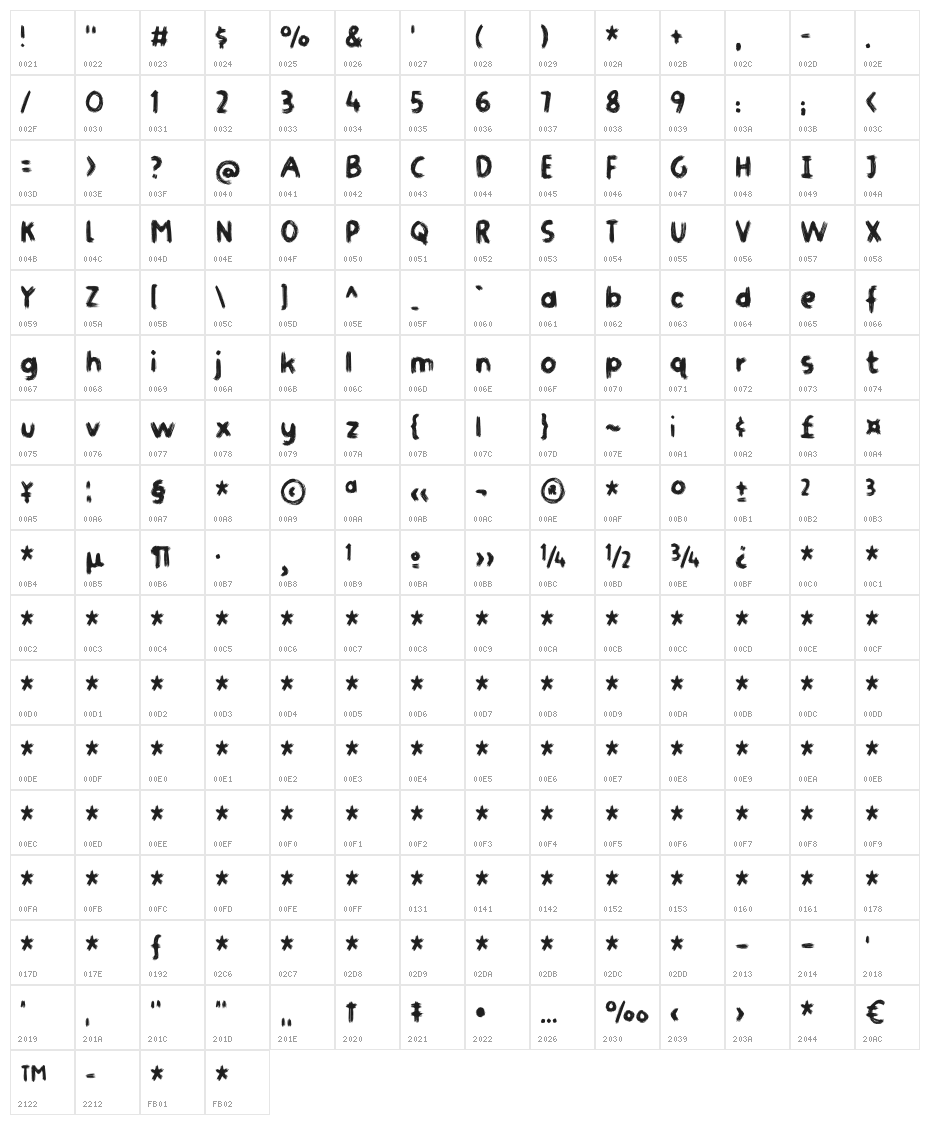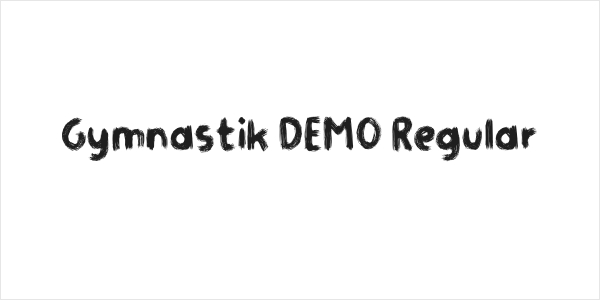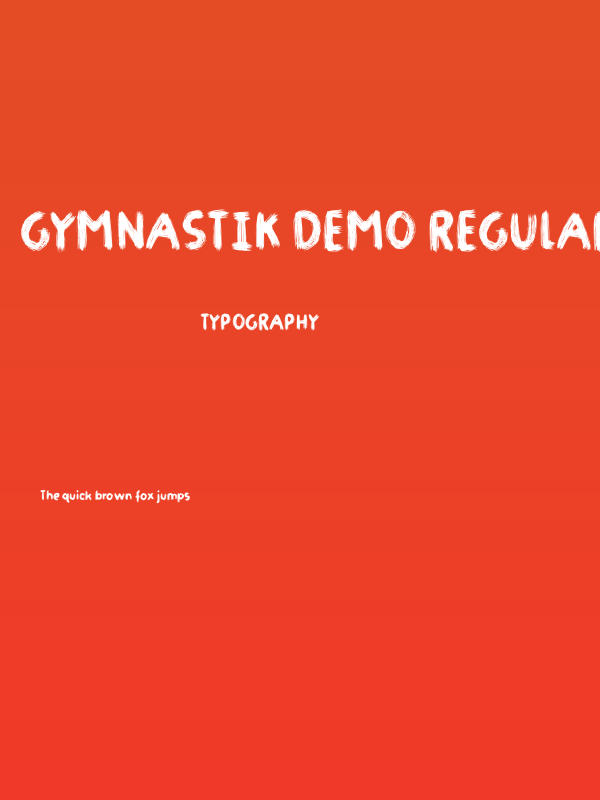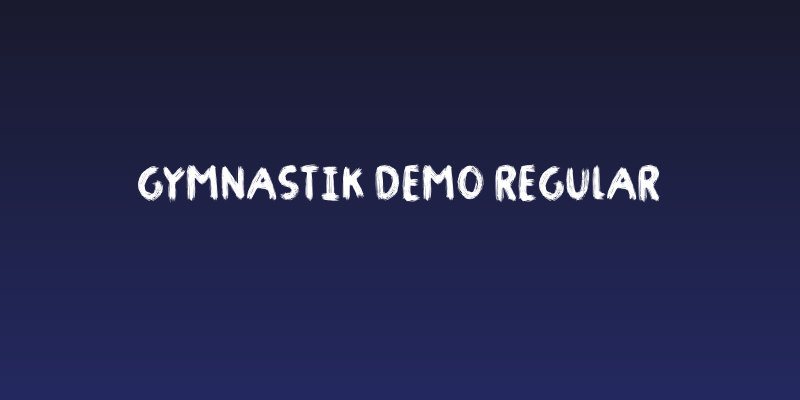
Gymnastik DEMO Regular Font
Gymnastik DEMO Regular Description
This font features a bold and dynamic brushstroke style, giving it a hand-painted appearance. The characters are crafted with rough, textured edges, creating a sense of movement and energy. The uppercase and lowercase letters maintain a consistent style, with each character exhibiting unique brushstroke variations. Numbers and special characters follow the same artistic theme, ensuring a cohesive look across all elements. The font's expressive nature makes it ideal for projects that require a strong visual impact.
Proposed ProjectsIdeal for posters, artistic branding, event invitations, and creative advertising campaigns.